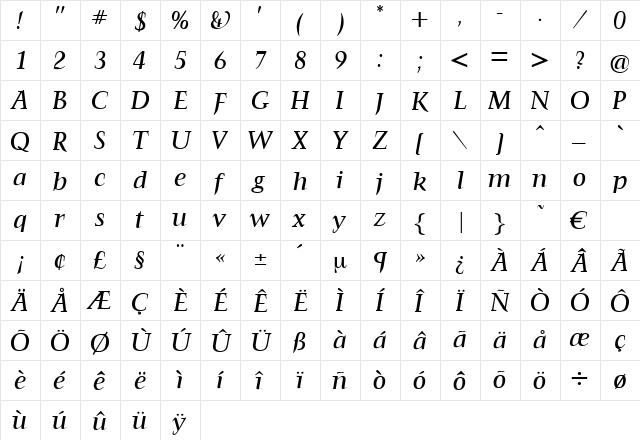
FrancoisMediumItalic Regular
Design Context for FrancoisMediumItalic Typeface
FrancoisMediumItalic is a composed and adaptable typeface that performs quietly and consistently across a wide range of design contexts. The slanted form adds forward momentum and visual energy.
Pro Tip: Use FrancoisMediumItalic for emphasis, pull quotes, and subheadings where its slanted energy can add rhythm to the layout.